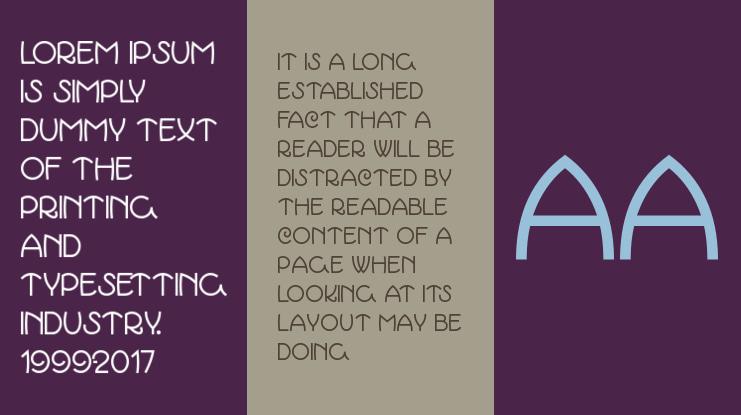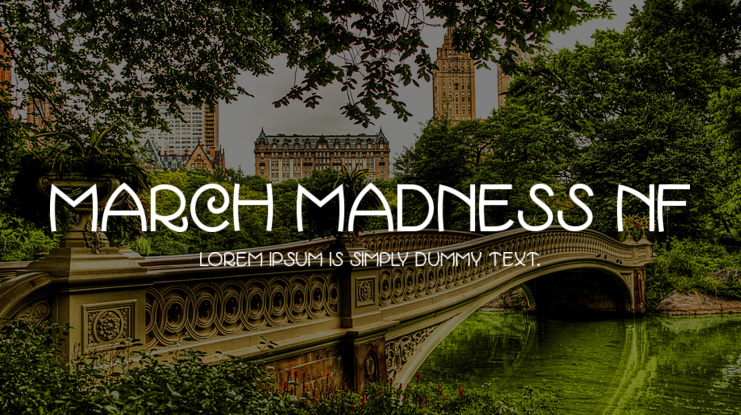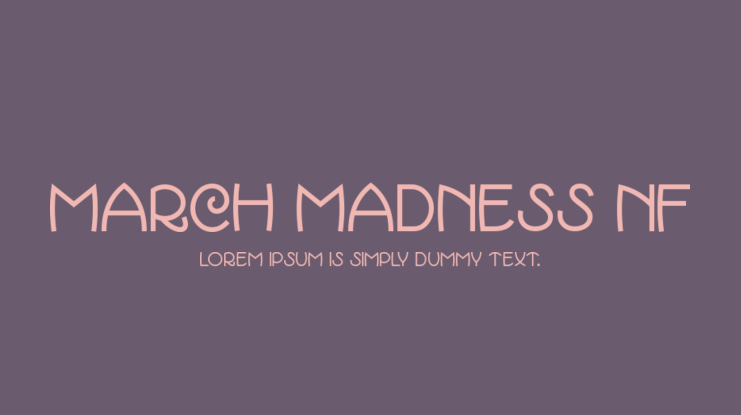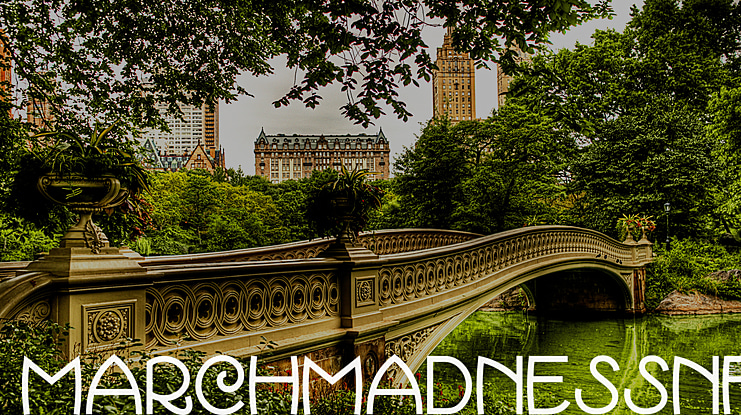
March Madness NF Font
Nick Curtis
This playful romp through the alphabet was inspired by lettering from a 1920s Italian poster by legendary postermeister Marcello Dudovich. The name, utter arbitrarily, was chosen merely to highlight some of the font’s most charming features.